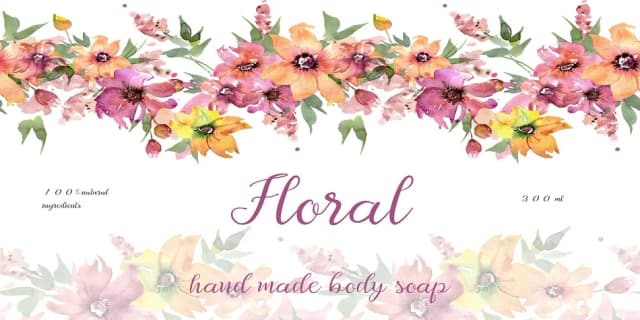
Badsig by Aditastudios is an elegant script that brings a refined, hand-drawn quality to designs that need warmth without sacrificing sophistication. The letterforms work beautifully for wedding invitation suites where you need something more refined than typical brush scripts, and it translates equally well to luxury cosmetics packaging, artisanal product labels, and special occasion branding. Small business owners and independent designers rely on scripts like this for custom stationery, coffee shop menus, and boutique retail packaging that needs to feel intentional and personal rather than templated.
What sets Badsig apart is how cleanly the letterforms hold up across different scales without losing character. The font comes PUA encoded, so all alternates and swash variations load automatically, letting you cycle through different letter styles to find the right fit for each context. This flexibility means you're not locked into a single version of each letter. The design sits between formal calligraphy and contemporary handwriting, giving it genuine versatility across commercial and personal projects alike. You get the warmth of a hand-drawn script without the inconsistency that sometimes undermines that aesthetic.
- Elegant, Flowing
Badsig Font is a script font that shines as a display or heading face. Pair it with a clean sans-serif or serif font for body text β the contrast creates a clear hierarchy while the two styles stay balanced and easy to read.
Badsig Font
by Aditastudios